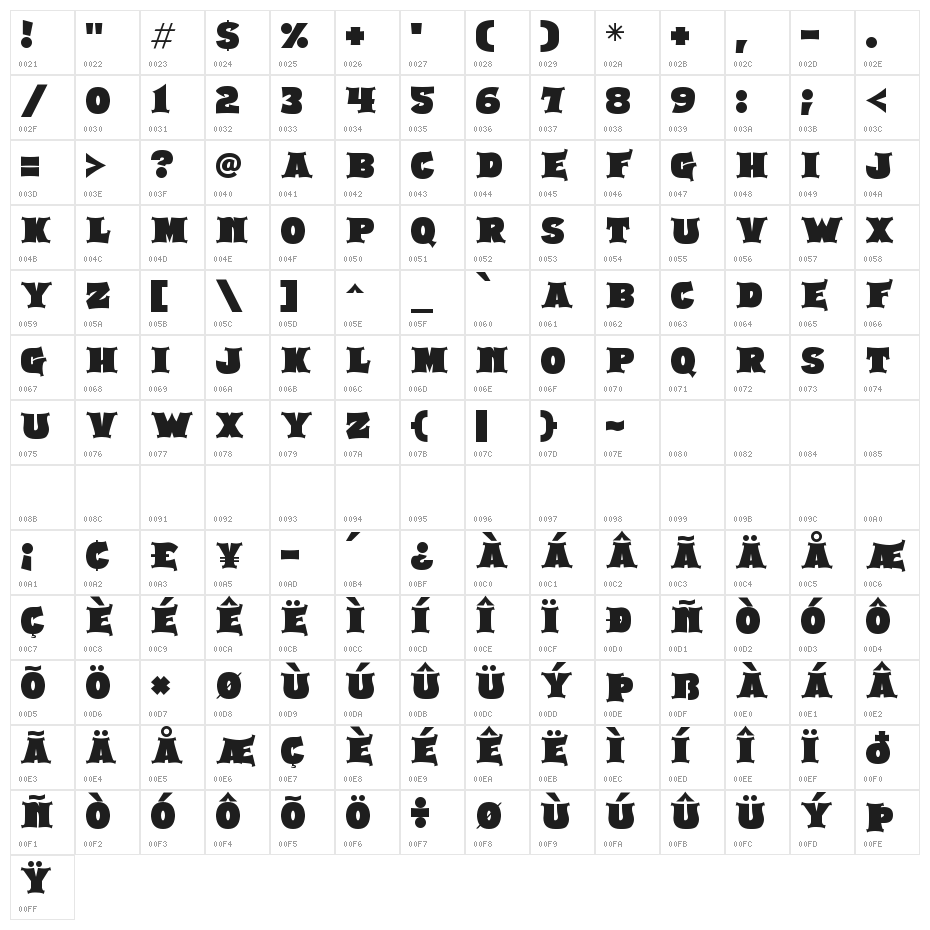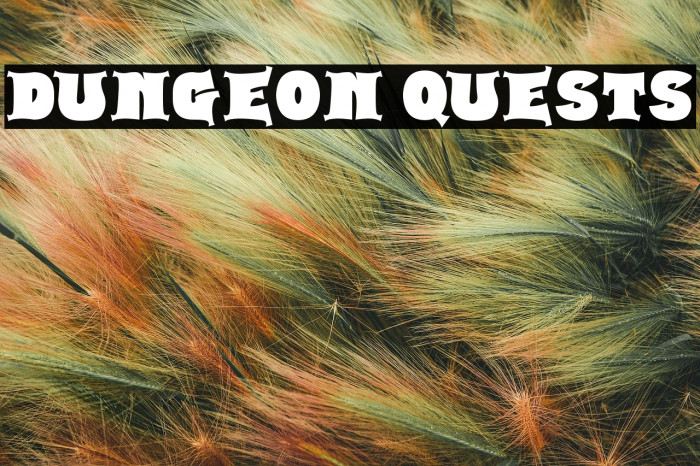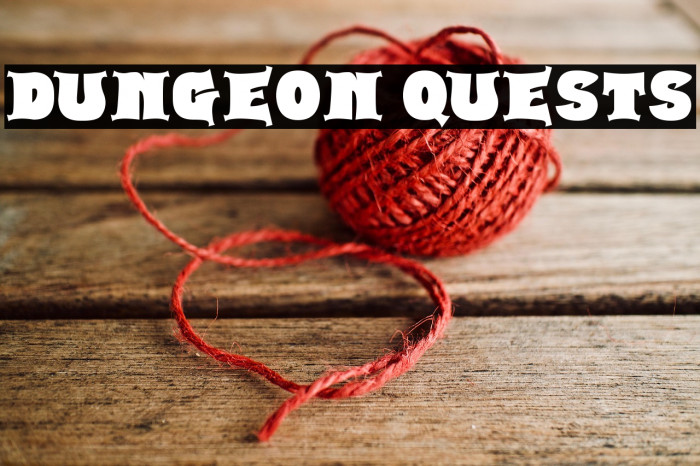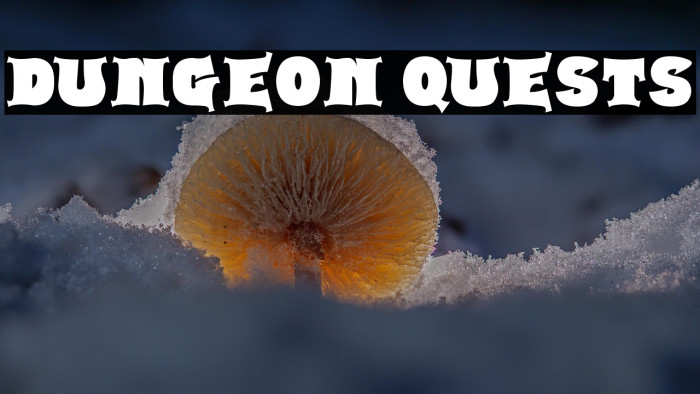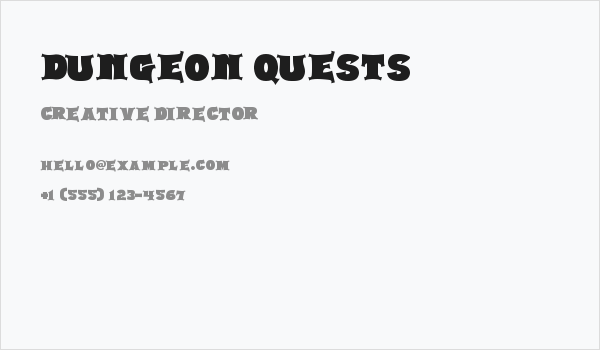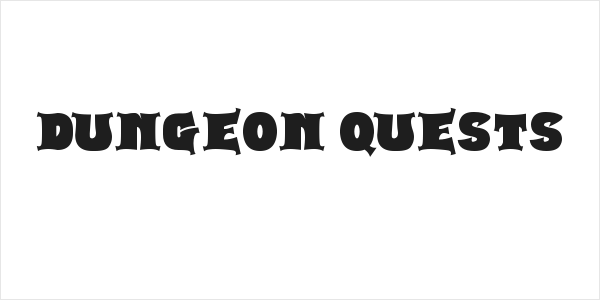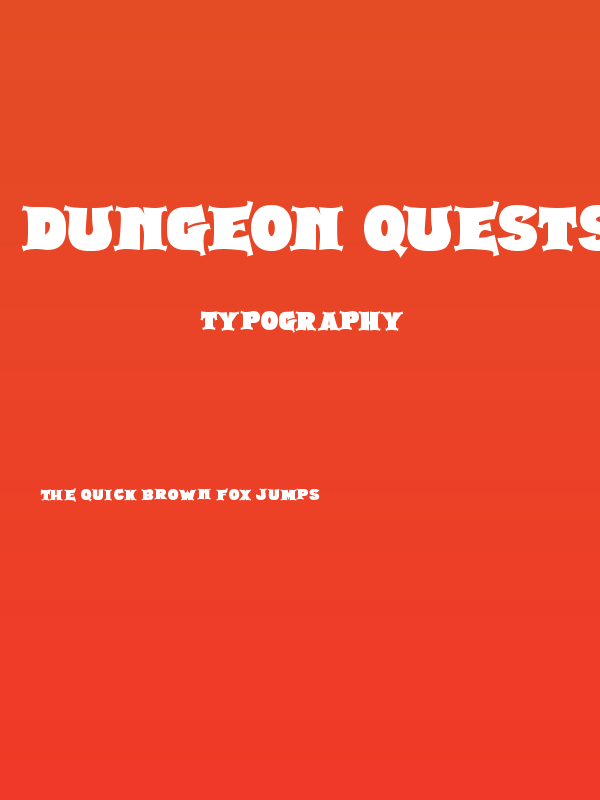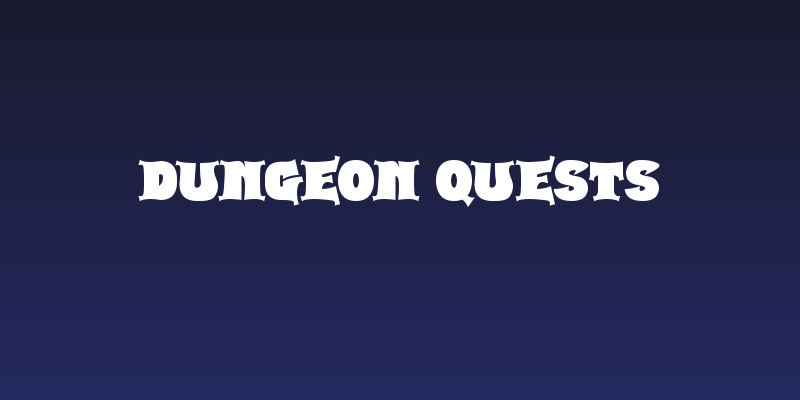
Dungeon Quests Font
Dungeon Quests Description
This font features a bold and adventurous style, reminiscent of medieval or fantasy themes. The characters are robust and have a strong presence, with sharp edges and a slightly gothic influence. The uppercase and lowercase letters are consistent in their boldness, making them suitable for impactful headlines or titles. The numbers and special characters maintain the same thematic style, ensuring a cohesive look across all text elements. The font's design is ideal for projects that require a dramatic and eye-catching typeface.
| Proposed Projects | Ideal for fantasy-themed games, book covers, posters, and branding that requires a dramatic and adventurous look. |